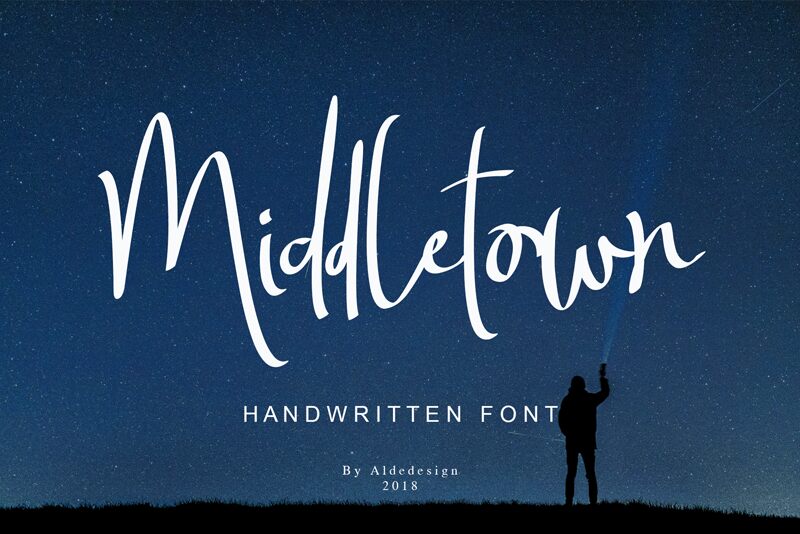
Middletown One_Regular
Middletown One is a captivating handwritten font that exudes a sense of effortless elegance.
Designed by Aldedesign, this light-weight script boasts sweeping strokes and subtle flourishes, creating a beautifully fluid and organic aesthetic. The font's distinctive character lends itself seamlessly to a wide range of design applications, from invitations and editorial layouts to branding and packaging.
Its playful yet refined nature can infuse any project with a touch of sophistication and charm, making Middletown One a versatile choice for designers seeking to add a personal, handcrafted touch to their work.